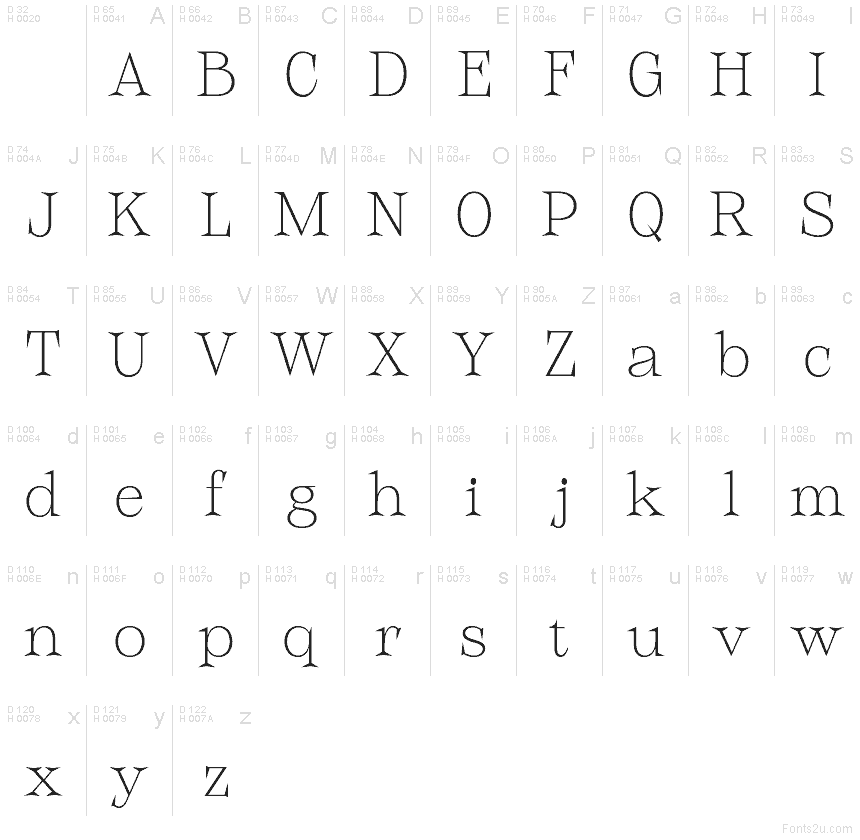
CS Victoria Regular Demo
CS Victoria font designed by Craft Supply Co. ranks among the greats of elegant Gothic-inspired fonts with classic serifs and a sophisticated appeal. Its lightweight enjoys subtle serifs that define its refined elegance and make it a great choice for both headings and short paragraph texts.
Use CS Victoria in posters, typography logos, magazines, newspapers, book covers and interiors, cards, packaging designs, labels, or shop displays.